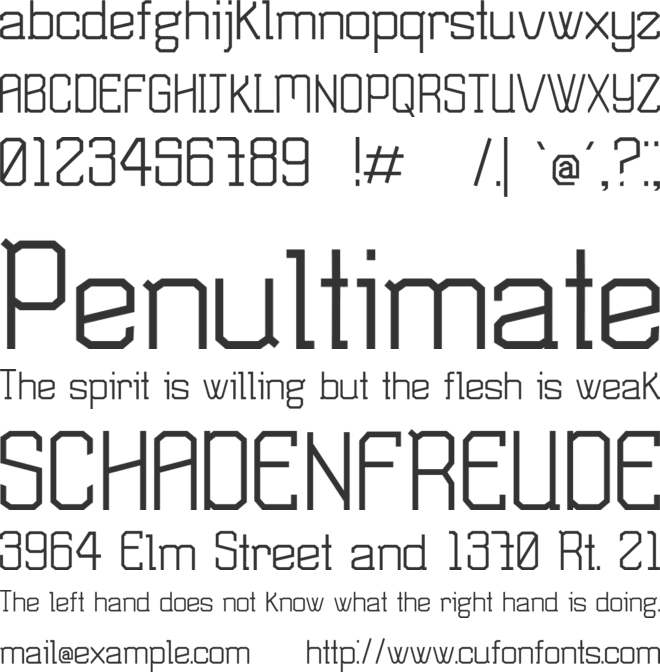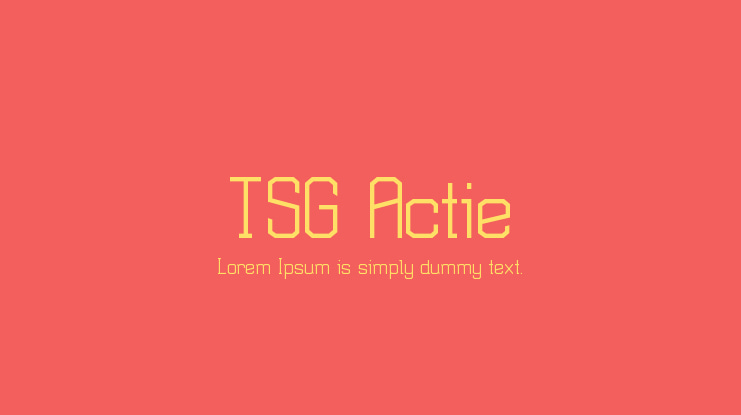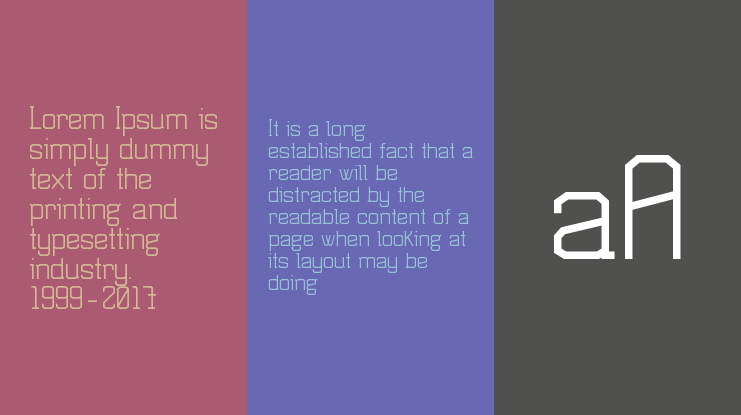
TSG Actie Font Family
Tapiwanashe Sebastain Garikayi
TSG Actie is inspired by action and sports. This Typeface comes with 8 weights from Ultralight to Heavy. TSG Actie will give you some great options to use. This font family ‘will do justice’ in both print and digital; as display text in headlines for editorial, posters, banners, websites, apparel, logos or magazines etc